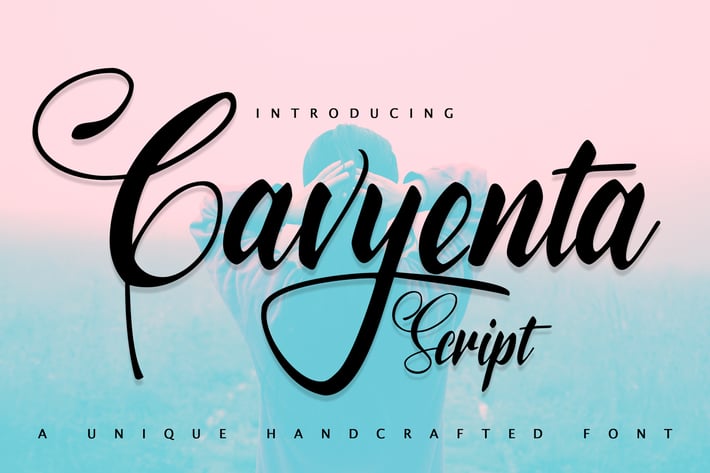
Cavyenta | A Unique Handcrafted Font
Cavyenta | A Unique Handcrafted Font with a calligraphy style, So beautiful on invitation like greeting cards, branding materials, business cards, quotes, posters, and more!